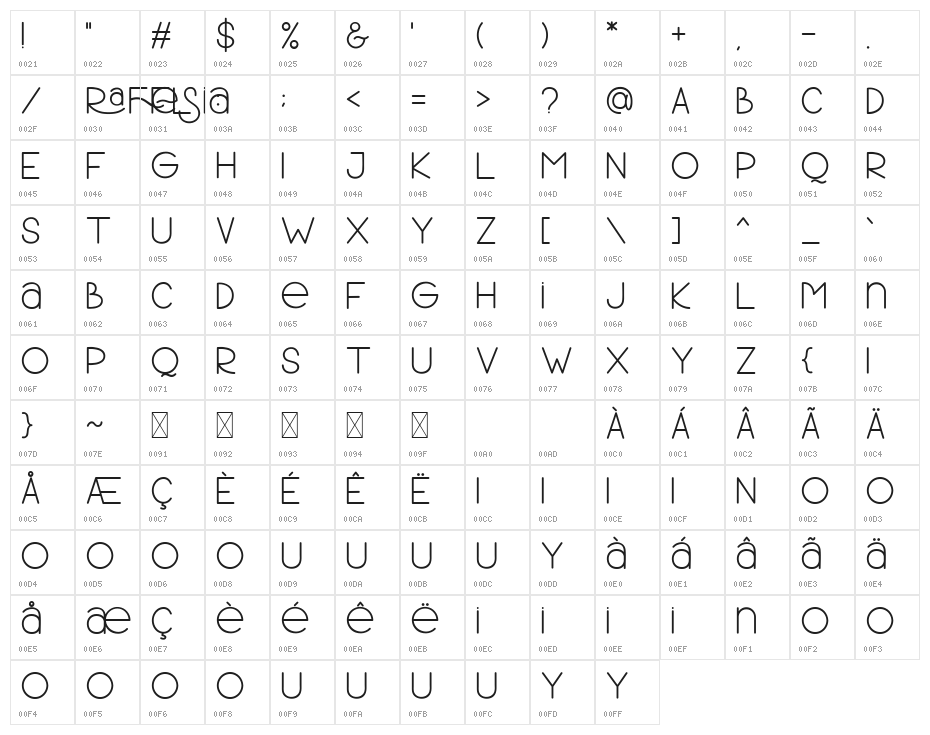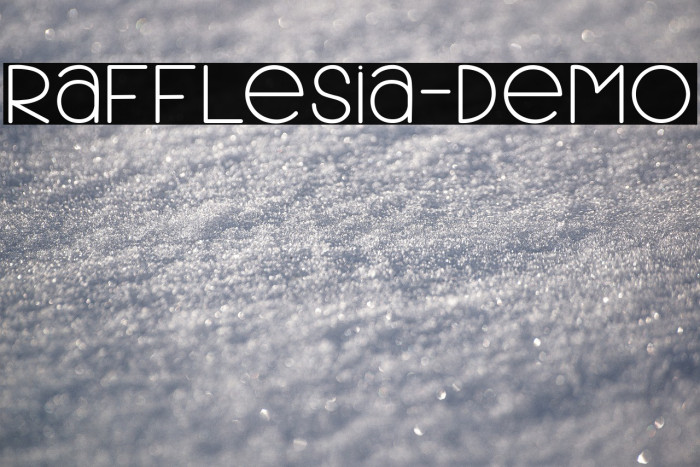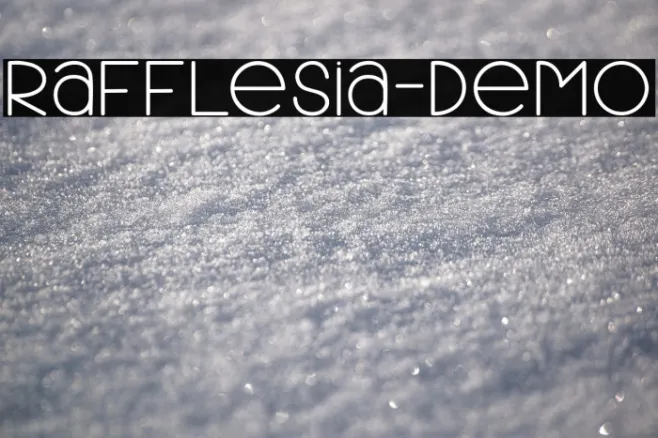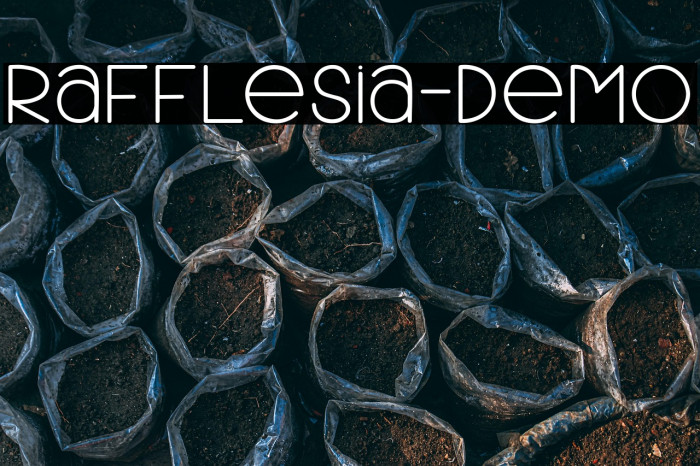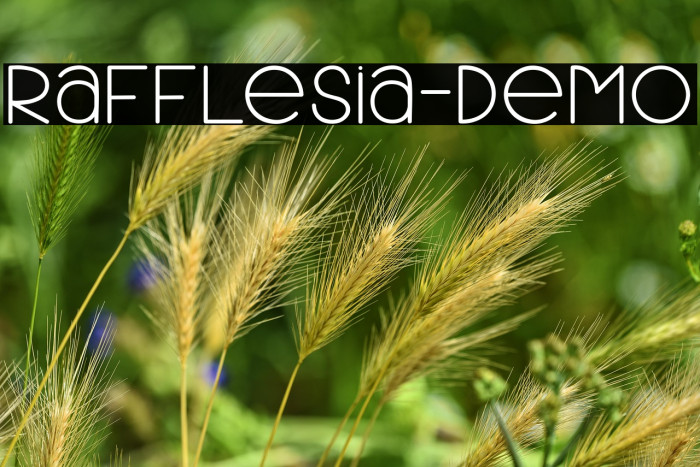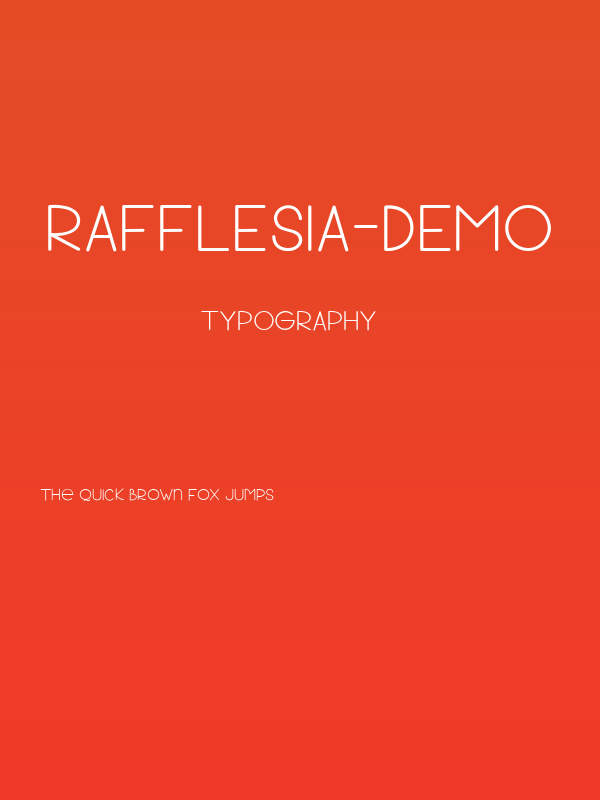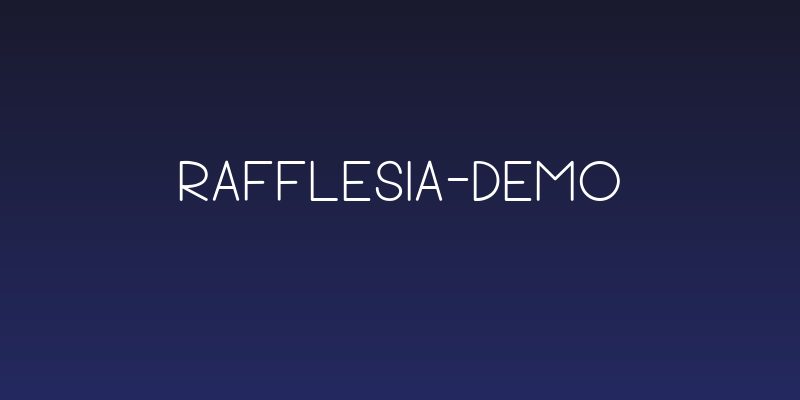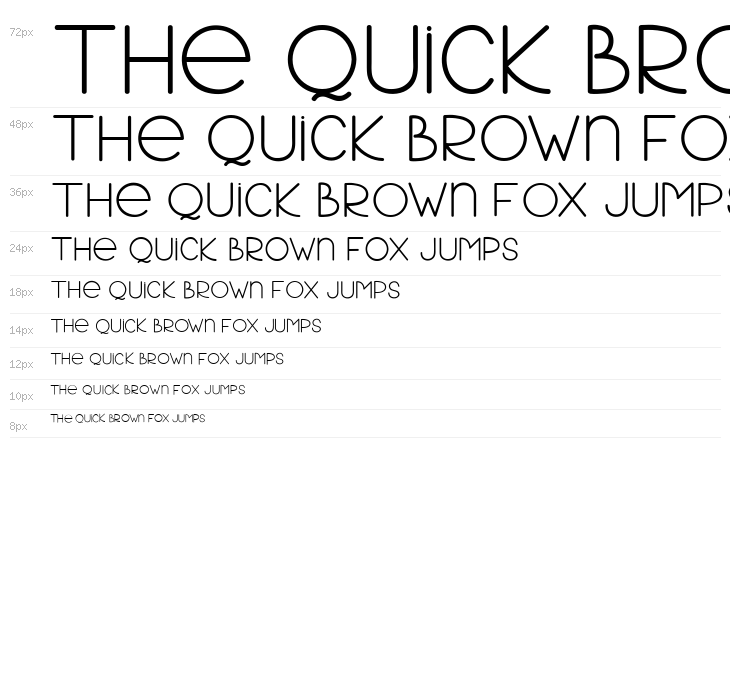
Rafflesia-Demo Font
Rafflesia-Demo Description
This font features a unique and playful design with a modern twist. The characters are crafted with a combination of straight lines and gentle curves, giving it a distinctive and artistic appearance. The uppercase letters are bold and prominent, while the lowercase letters maintain a consistent style with a slightly more delicate touch. The numbers and special characters are designed to complement the overall aesthetic, ensuring a cohesive look across all elements. This font's clean lines and creative flair make it suitable for a variety of design projects.